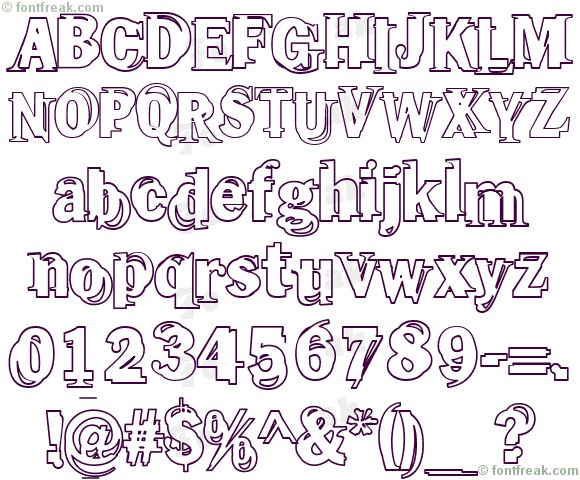
Frangia Four
About Frangia Four
Frangia Four by FONTASTIC! is a captivating display font that exudes a unique blend of playful elegance and artistic flair. As a decorative typeface, it features a whimsical design characterized by its rounded edges and varying stroke weights. The font showcases a delightful contrast between thick and thin lines, which adds depth to each character, while the spacing provides a balanced and airy feel. This combination makes Frangia Four an eye-catching choice for any creative project.
The visual characteristics of Frangia Four are particularly striking, with its curvaceous forms and intricate detailing that evoke a sense of charm and creativity. The decorative elements give it a vintage yet contemporary vibe, making it versatile for various applications. This font shines in use cases such as wedding invitations, where its elegance can enhance the romantic atmosphere, or movie posters, where it can attract attention with its distinctive style. Additionally, it can be effectively utilized in restaurant menus to create a welcoming and friendly appeal, or in children's book titles to spark imagination and curiosity.
Frangia Four is ideal for graphic designers, small business owners, and content creators looking to make a memorable impact with their typography. Its playful nature allows it to resonate with a broad audience, making it perfect for projects aimed at children or those seeking a light-hearted aesthetic.